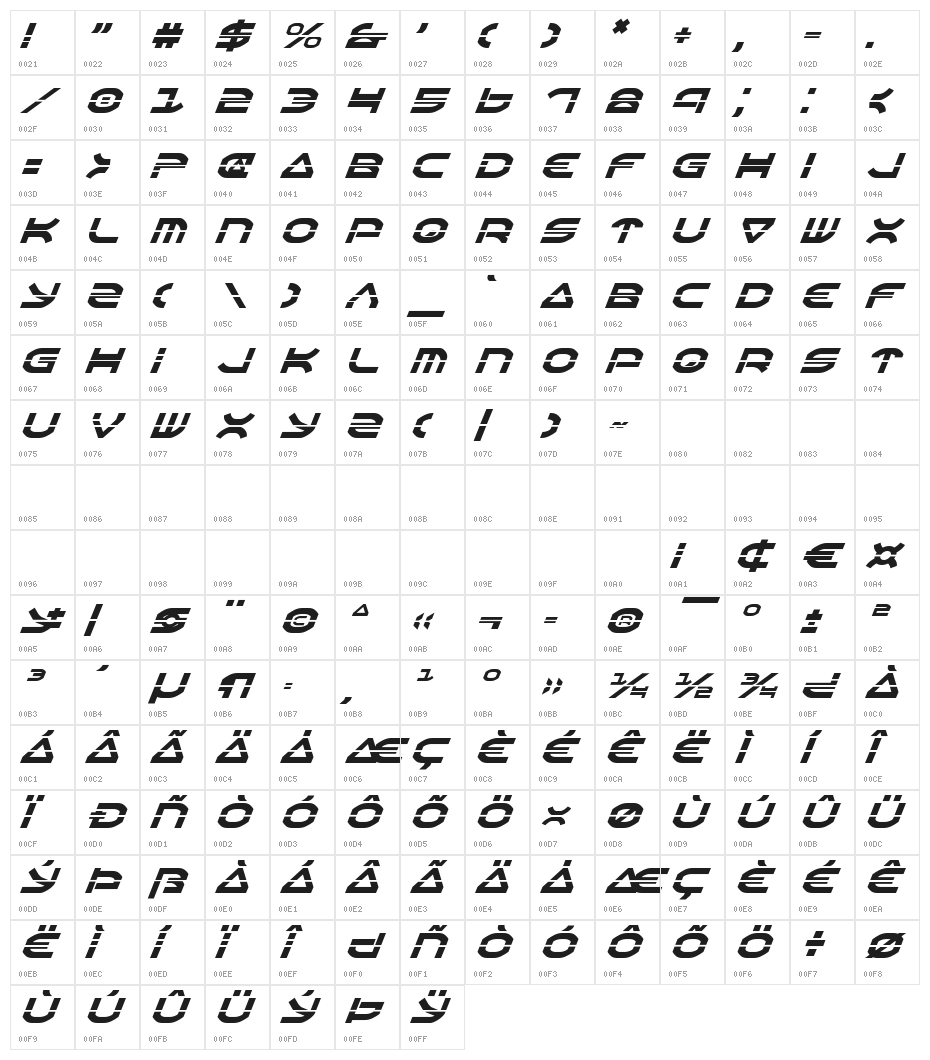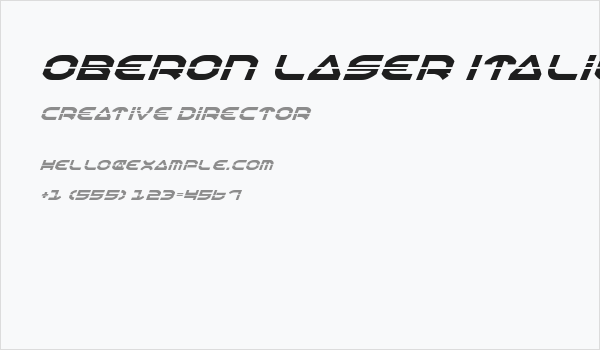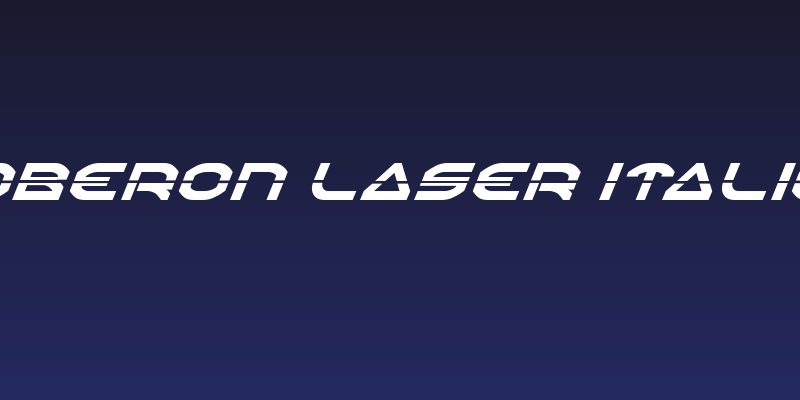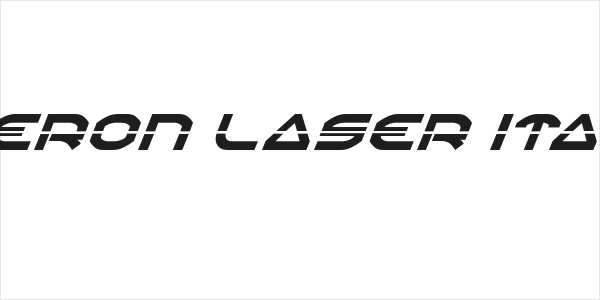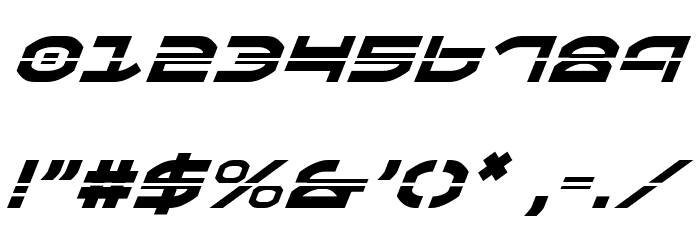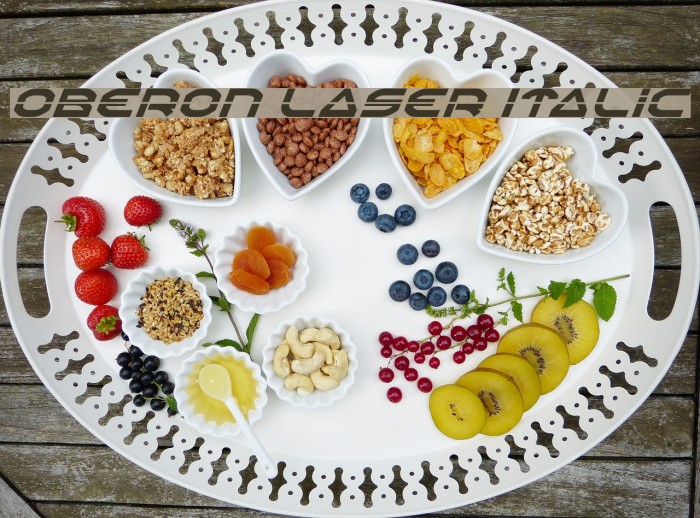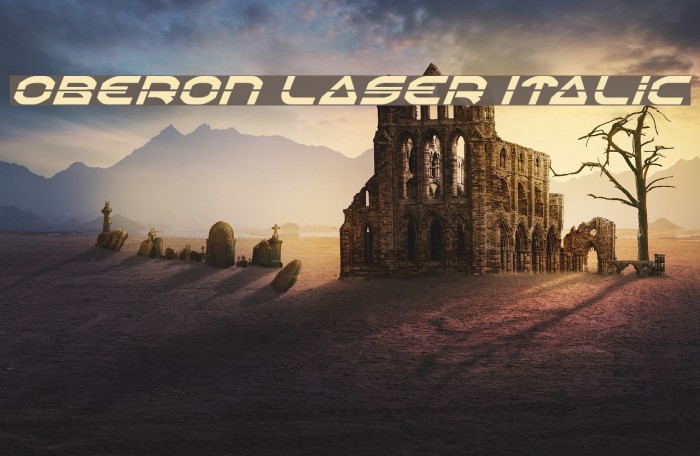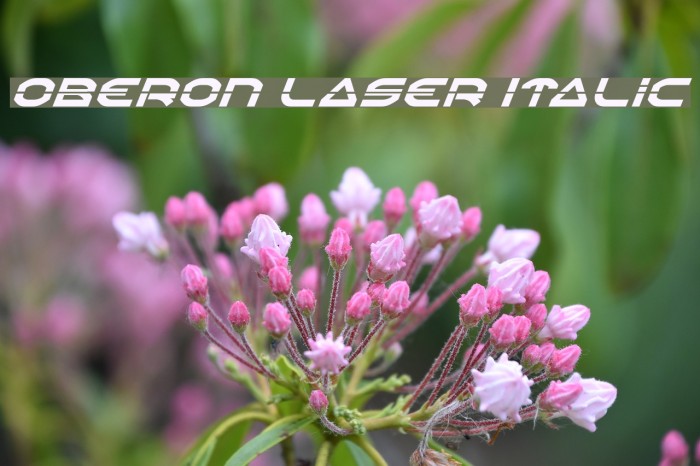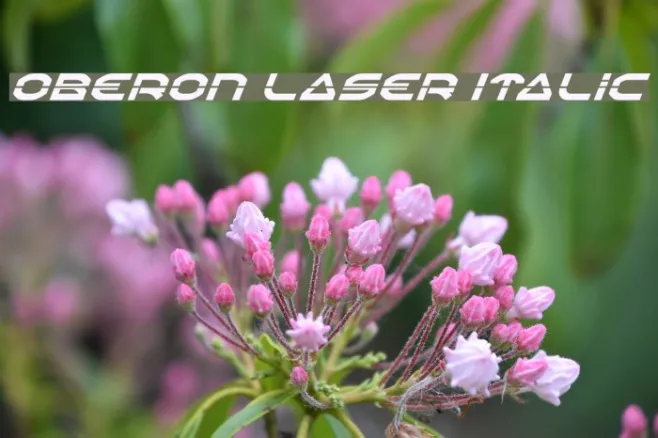
Oberon Laser Italic Font
Oberon Laser Italic Description
This font features a futuristic and dynamic design, characterized by sharp, angular lines and a slanted, italicized posture. The letters are bold and have a distinct geometric style, with some characters incorporating unique cut-out sections that enhance its modern and edgy appearance. The numbers and special characters maintain this cohesive design, making it suitable for projects that require a high-tech or sci-fi aesthetic. The overall look is sleek and conveys a sense of speed and innovation.
| Proposed Projects | Ideal for sci-fi movie posters, tech company logos, video game titles, and futuristic branding. |